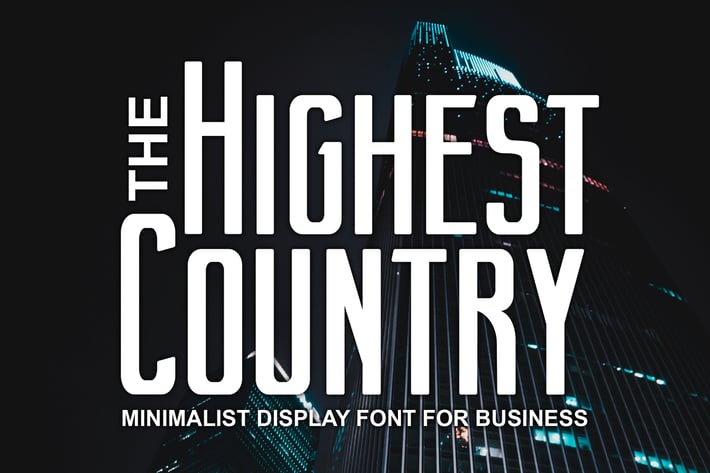
Highest Country Elegant Font
Highest Country is elegant font. It can easily be matched to an incredibly large set of projects like logo, package, advertisement, magazine, , so add it to your creative ideas and notice how it makes them stand out!